Monoline style fonts are well used by designers in many comprehensive design projects. simple style with a single line, making these fonts feels clean and minimalist. When combined with swash, monoline font will feel more elegant and luxurious. So in this great post we have gathered more as 50 free and premium monoline fonts for each designer. Keep a good mood and enjoy!
Rotherham Monoline Font
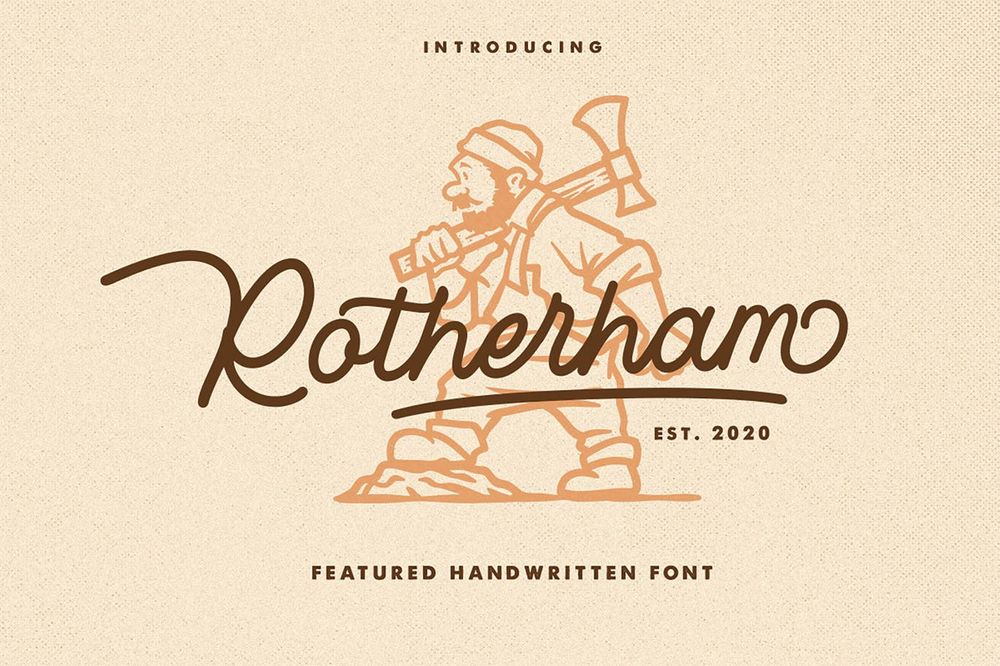
Popo Monoline Sans Serif Font (Free)
Nickainley Font
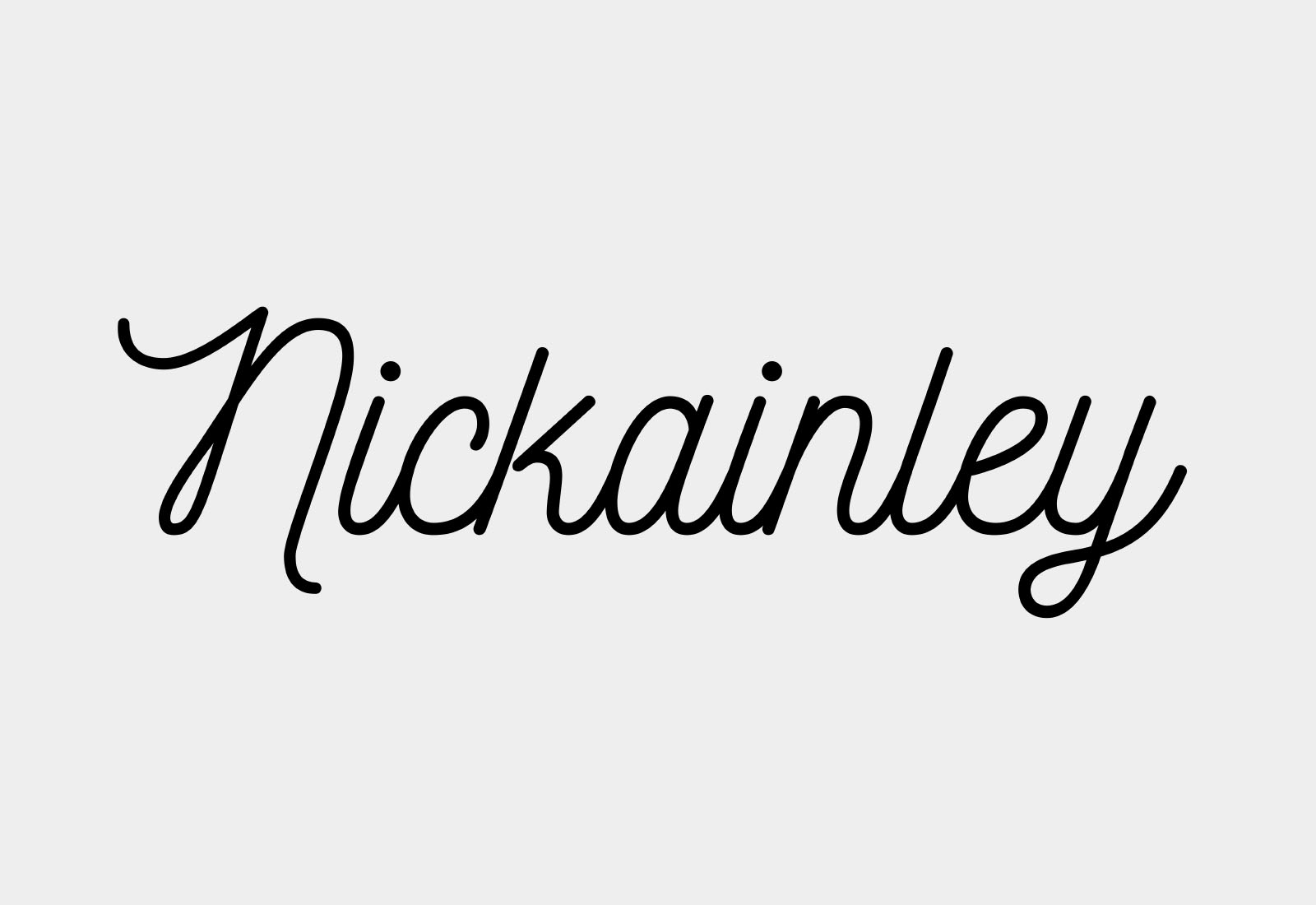
Garment District – Free Monoline Script
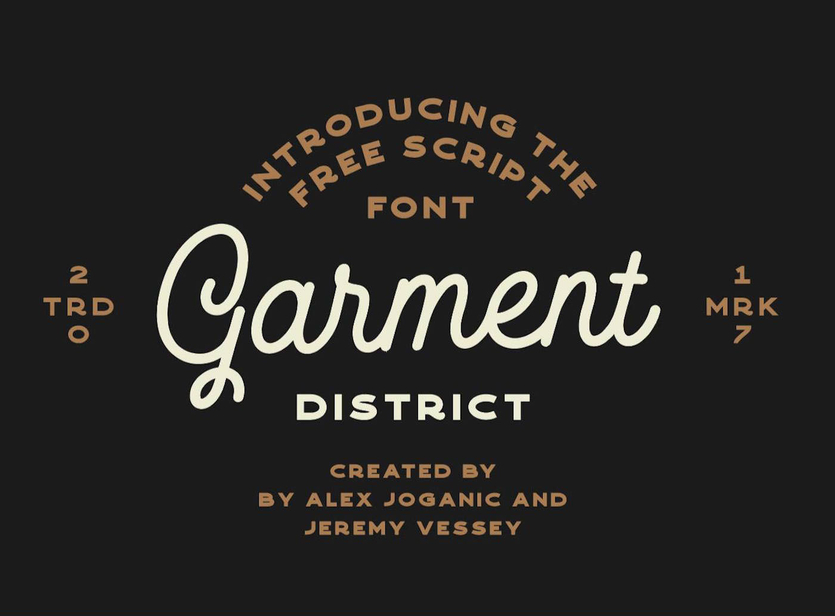
Rotters – Free Monoline Signature Script Font
Monoline – Script Font
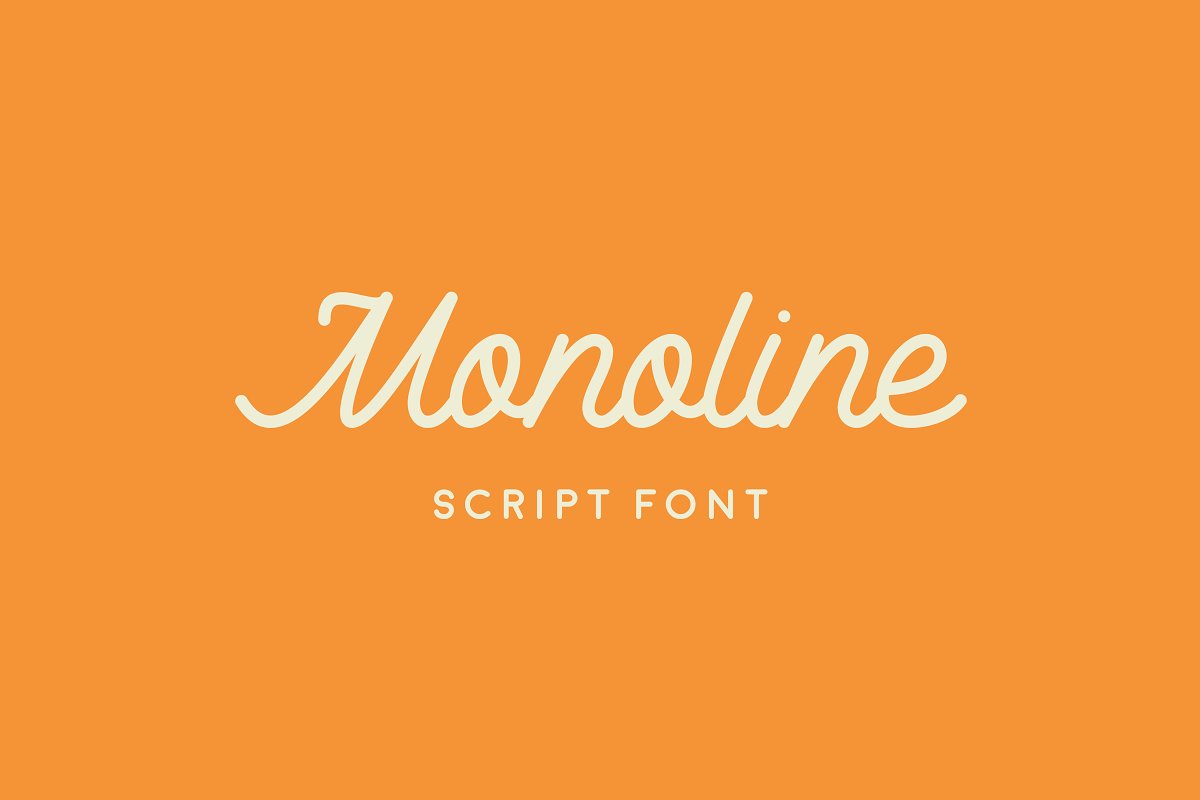
Routen Lightning Monoline
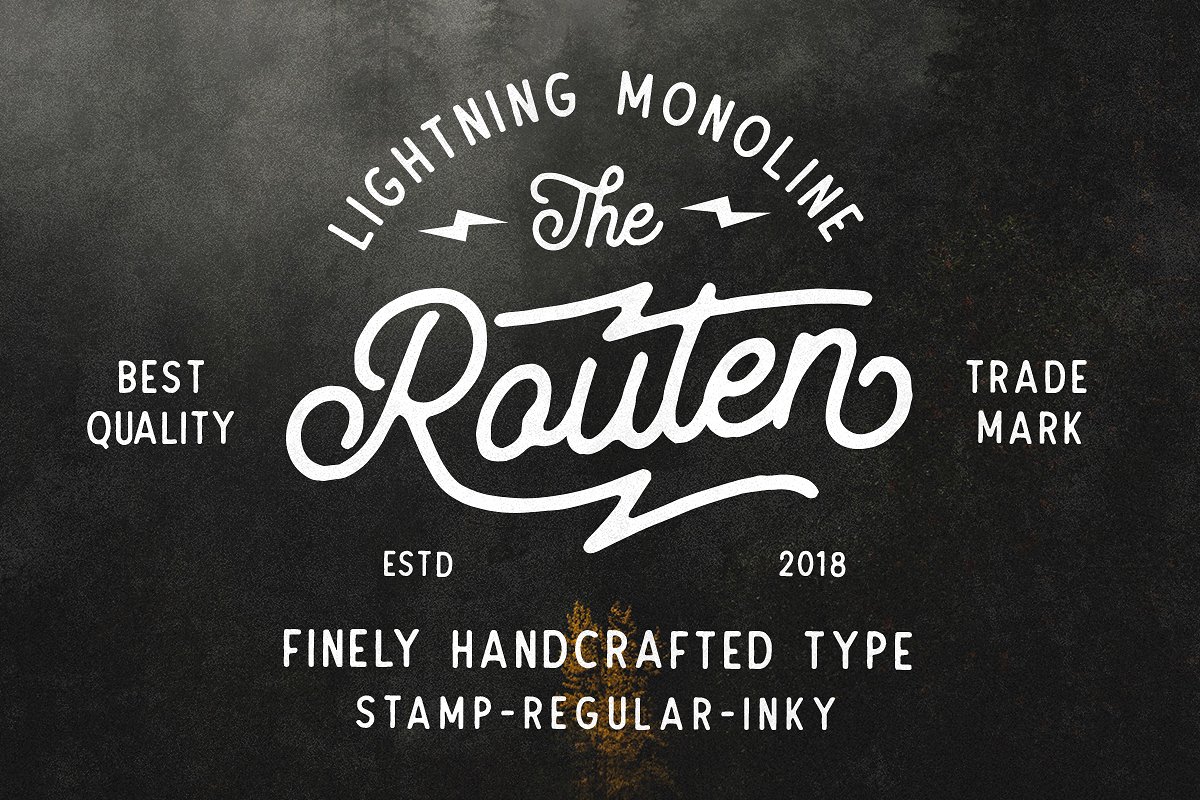
Kingbirds – 6 Styles Monoline Script
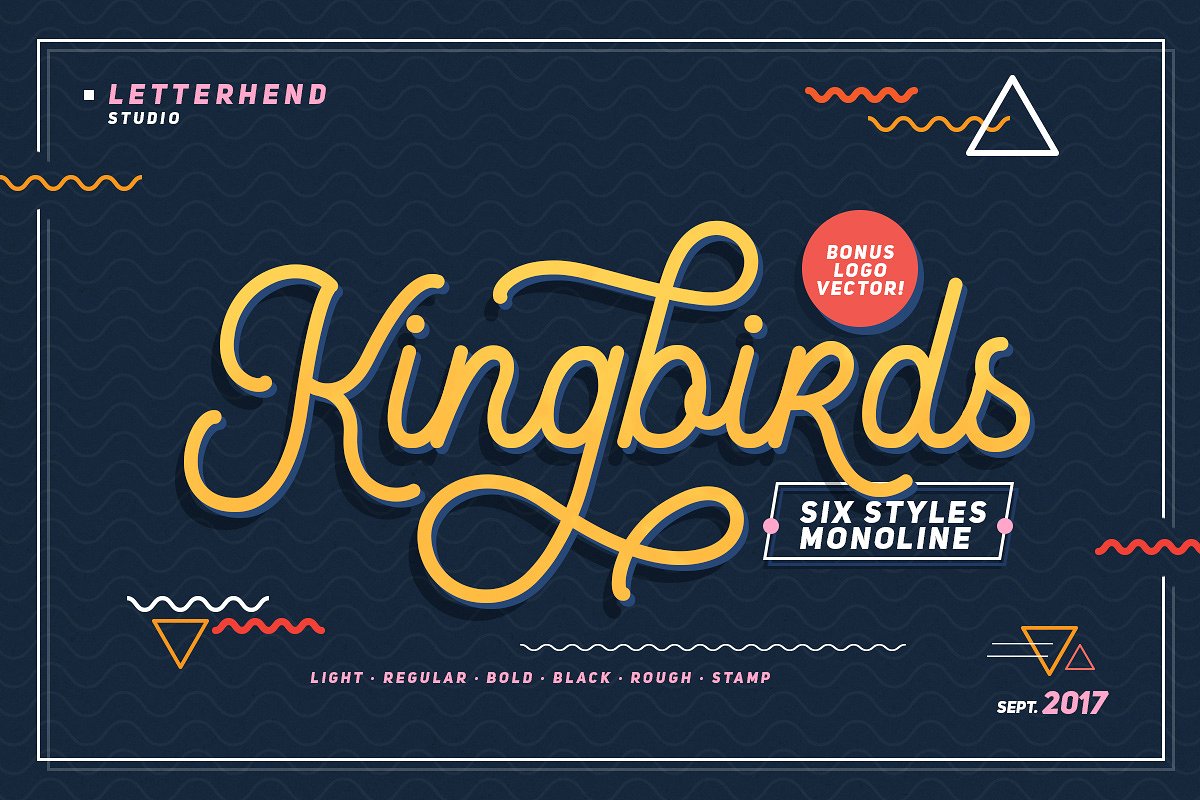
Retrology – A Retro Monoline Script
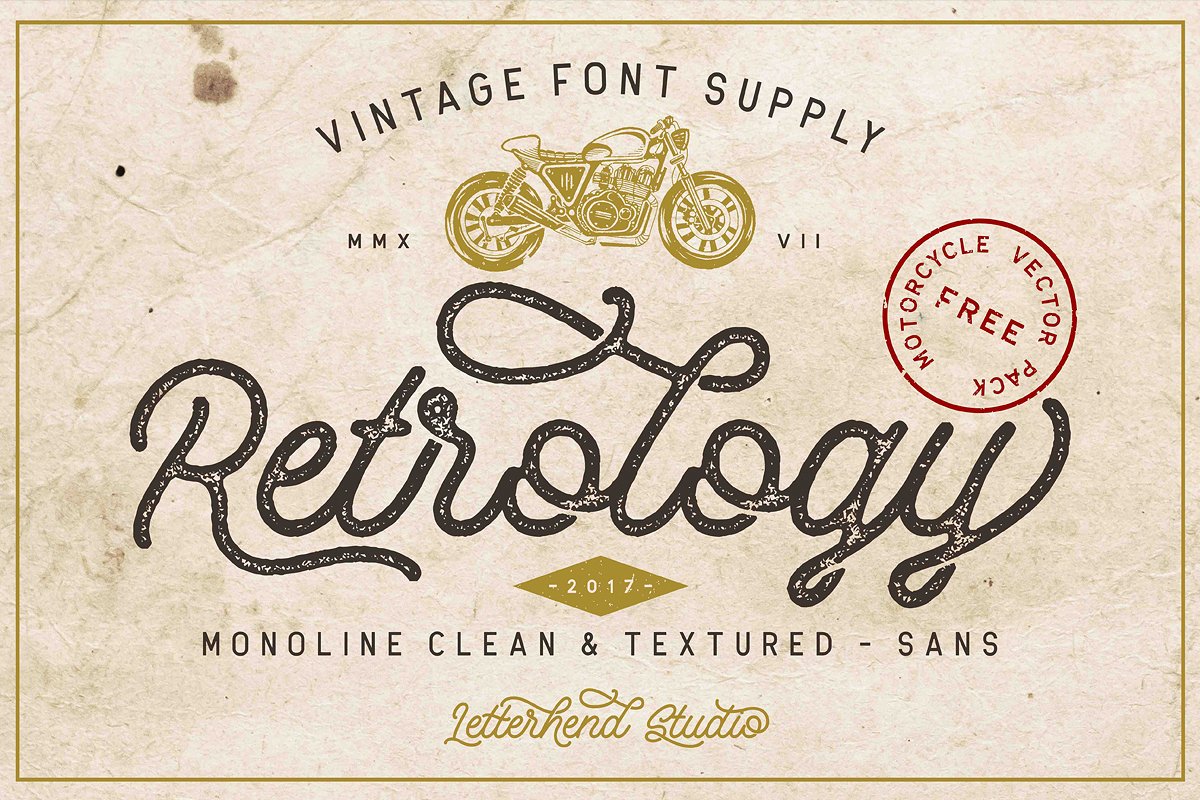
Aamonoline Free Font
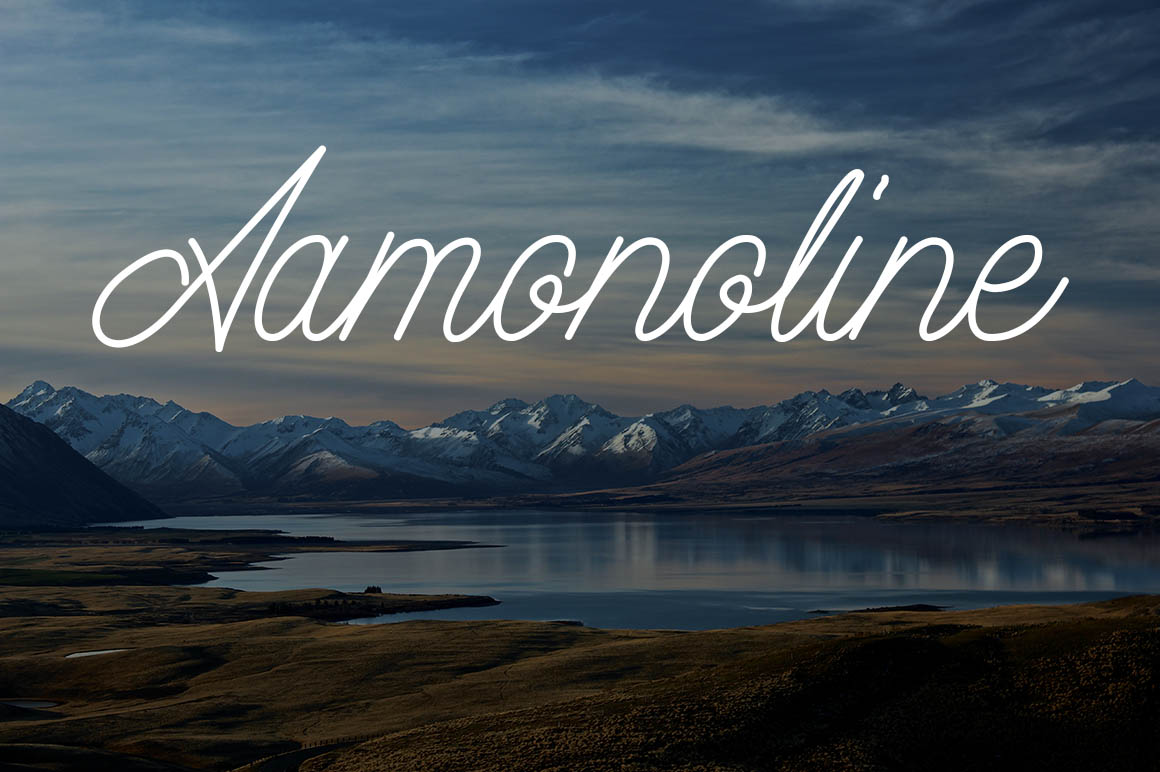
Signatura – Monoline Free Font
Gilligan Shutter Free Font
Noble Company Free Font
Barcelony Free Font
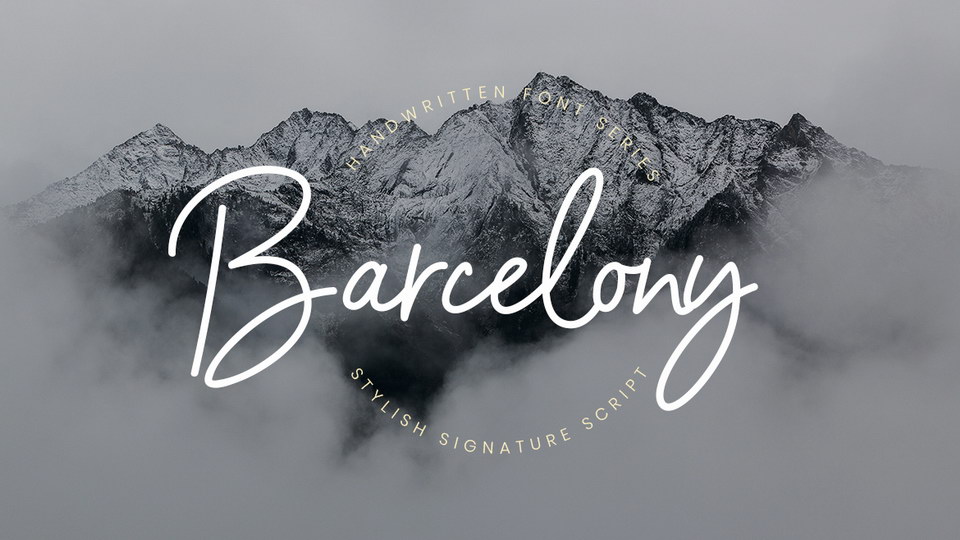
Angelova Monoline Script
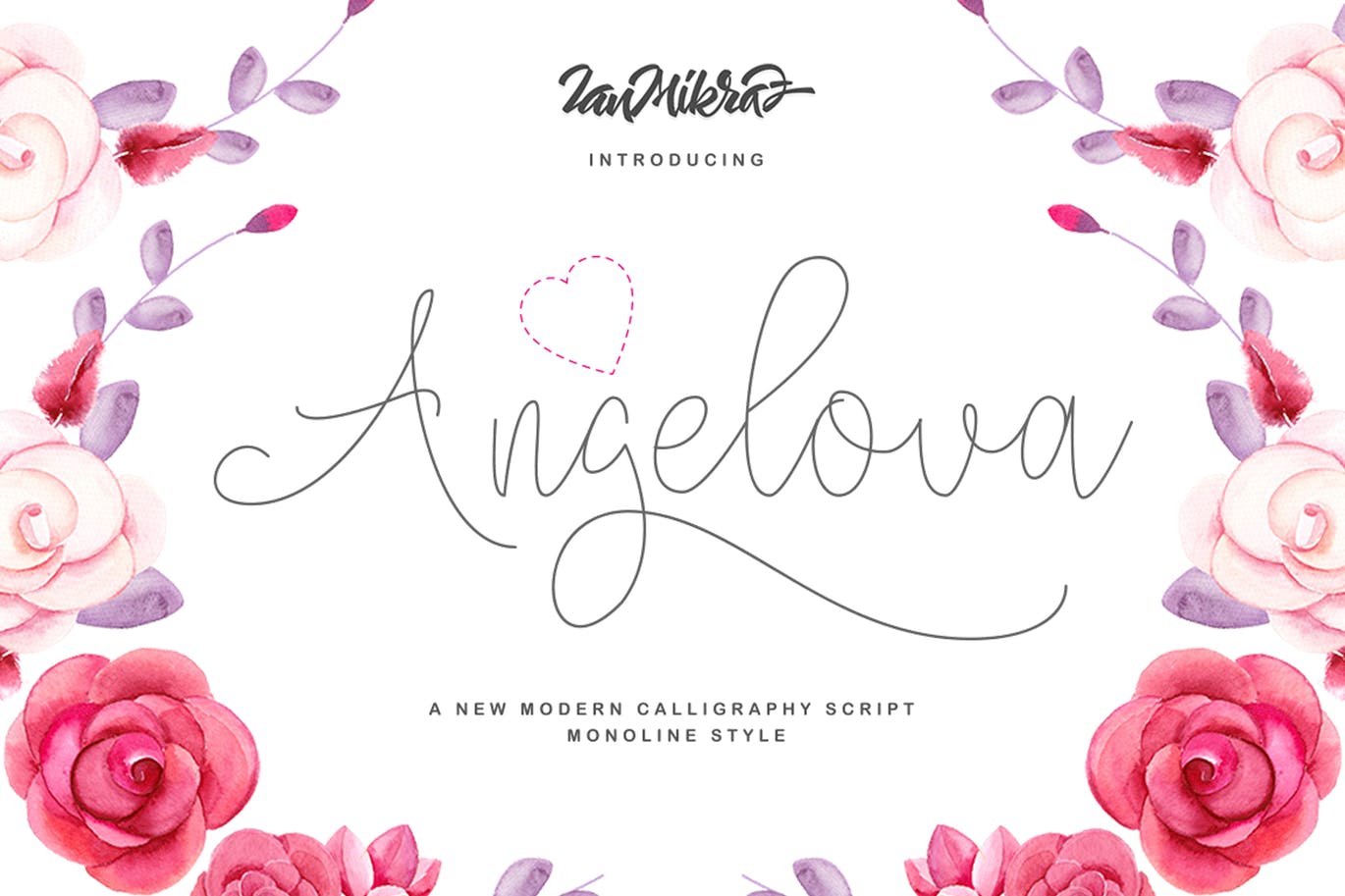
AutoRich Monoline Script
Felician Monoline Script
Madgue – Connected Monoline + Extras
Lesley – Monoline Script Font
Hustle Script – Monoline
Campgound Monoline – 2 Fonts
Sidecar Script & Sans Font
Belvedere – Monoline Font Duo
Somersette Script Font
Olivia – Elegant Monoline Script
Shepia Script
Westey
Hectonia
Retylle Solyta Monoline
Cosmodrome Monoline Script Font
Prasto – Monoline Script
Mirandah | Monoline Font Family
Vontage – Monoline Typeface
Queenline Font
Masmello Typeface
Lettia
Brotherhood – Monoline Display
Hesterica
Catalina Monoline
Royland Vintage Font
Neithan Monoline Script
Orchestra Script – Monoline Typeface
Yesie – Monoline Cursive Script Font
Natron – Monoline Signature Font
Classical – Classy Monoline
Outfitter Script
Boldline – Monoline Bold Typeface
Hotline
Rhaikane
Hipsteria + Bonus